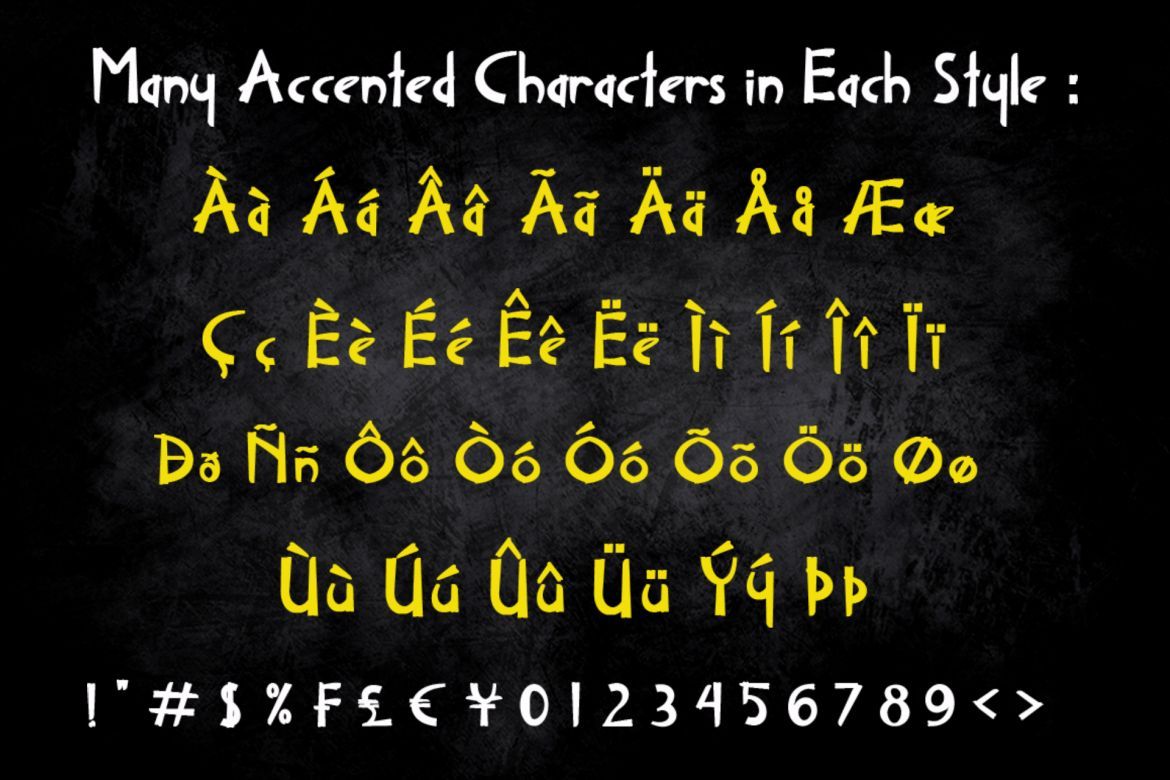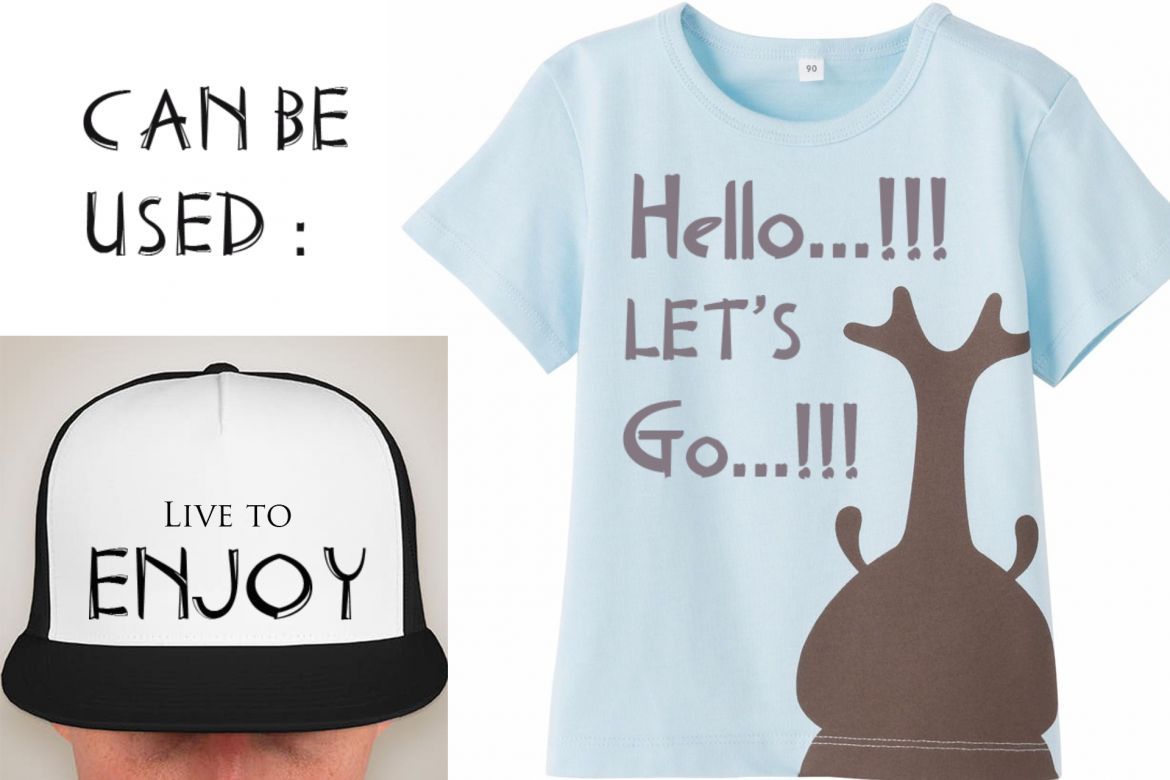
Delicious Font Family
a set of 5 fun hand-lettered fonts style that mix and match and snuggle together like one big alphabet family.
I hope You will get fun with this font, feel this font in comfort, flexible.
Delicious contain in 5 style fonts :
• Delicious Regular
• Deliciuos Italic
• Delicious Bold
• Delicious Inline
• Delicious Inline Italic.
• Many accented characters in each file for language support
• each font has bit different style can be use 1 by 1 or together